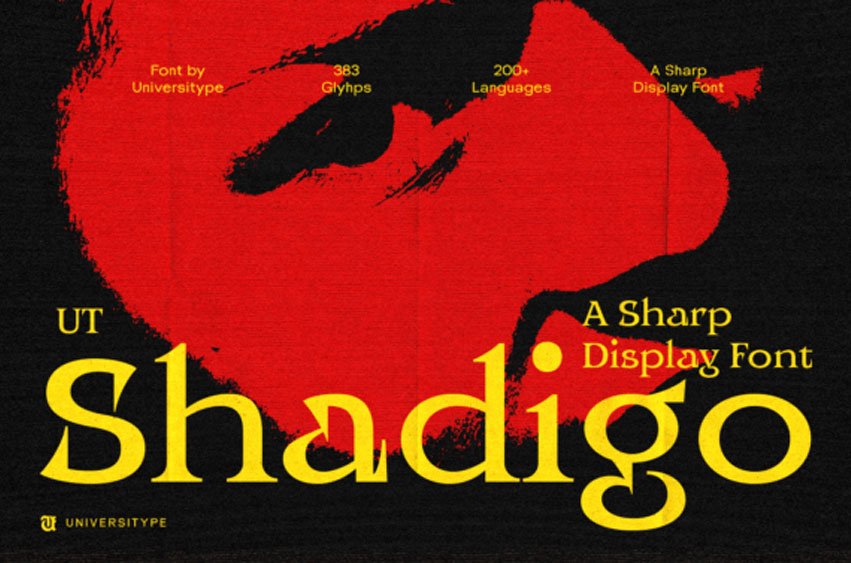
Ut Shadigo Font Immerse yourself in the dynamic world of UT Shadigo, a typeface that doesn’t just speak, it roars with personality. This design exudes confidence, bringing a powerful contrast and definitive sharpness to every letter. Possessing an air of sophistication yet unrestrained by convention, UT Shadigo exhibits a rebellious streak that refuses to be boxed in.
Striking the perfect balance between hard-edged impact and a subtle softness, UT Shadigo is every designer’s dream. Artfully crafted with daring strokes and surprising angles, it has an irresistible edge that pulls you in. Simultaneously, the gentle softness prevents it from becoming overwhelming, encouraging a deeper exploration into its uniqueness. Its strong, geometric structure united with graceful curves creates a harmonious blend of form and function.
UT Shadigo paints a vivid picture of twilight cityscapes, embodying the urban sophistication of contemporary life. Be it on a poster, within a brand identity, or as part of editorial designs, UT Shadigo owns the stage, commanding and sustaining attention effortlessly.
This font is a beacon for those unafraid to step outside the box, artists who thrive in pushing boundaries. Whether you’re a brand that stands tall, a fashion label seeking the avant-garde, or a musician who embraces the extraordinary, UT Shadigo adds a touch of finesse and attitude like no other.
With UT Shadigo, you enjoy the luxury of stylized ligatures which add a distinctive persona to your work, balanced upper and lower case letterforms that enhance readability, and unique alternates for personal customization. The font also supports multilingual typesetting, enhancing its versatility and universal appeal.
Experiencing UT Shadigo is a journey into the heart of modern design, capturing the spirit of city life bathed in twilight, the harsh romance of steel and shadows, and the bold audacity of street culture. It celebrates the beauty in contrast – marrying strength and elegance, embodying a design that feels commanding without rigidity, and embodying a vibrance that leaves a lasting impression. The underlying inspiration for UT Shadigo was to create a typeface that could blend the powerful with the graceful, and it has succeeded in creating that perfect harmony. Embolden your visuals with UT Shadigo, and let your designs tell a story of elegance layered with an air of defiance and a dash of charm.